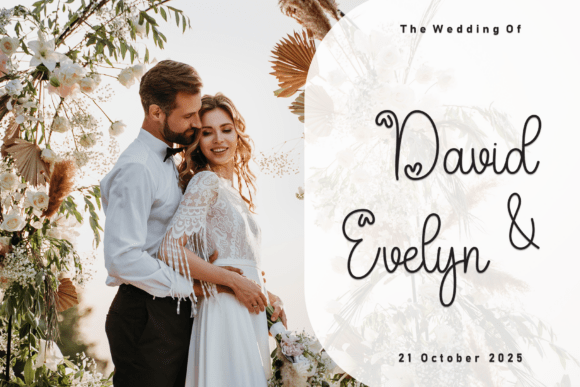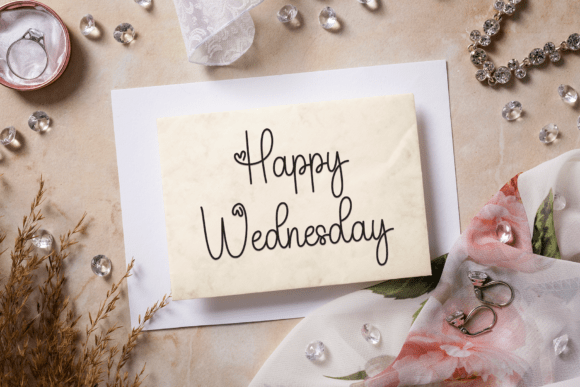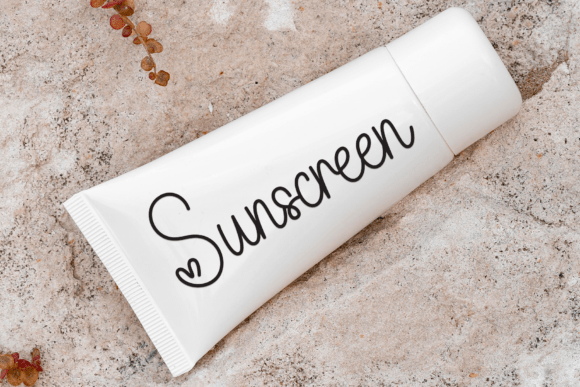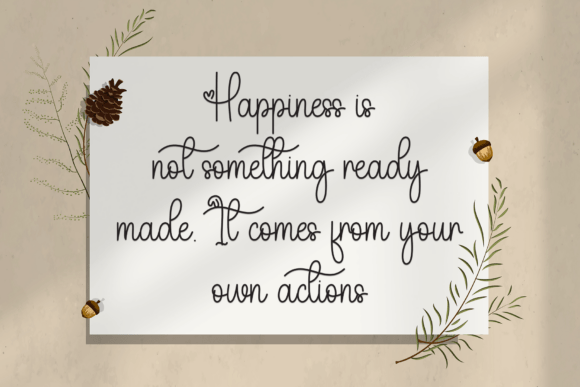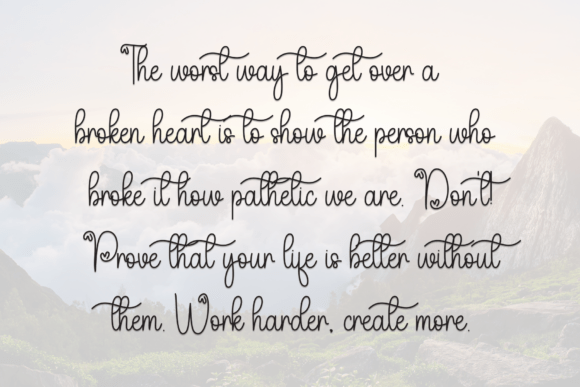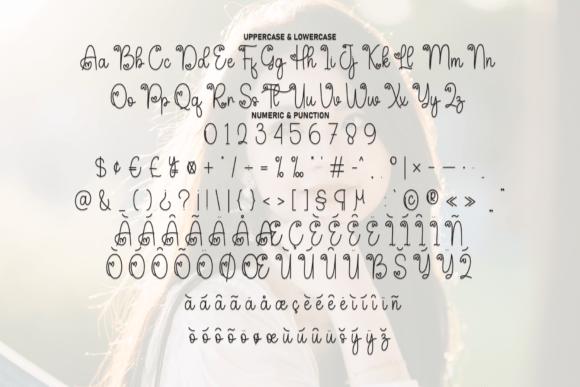
Discover Your Signature Style with Beautifulgirl Font
There’s something magical about the moment when a design idea comes together – the thrill of combining colors, textures, and typography to create a piece that truly reflects your personality. For many designers, this moment is all about finding the perfect font to set the tone and convey the message. And, that’s where the enchanting Beautifulgirl Font comes in – a delightful handwritten font that adds a touch of warmth and whimsy to any design endeavor.
Whether you’re creating wedding invitations, greeting cards, or simply want to add a personal touch to your designs, Beautifulgirl Font is the perfect companion. Its unique blend of playfulness and sophistication empowers your artistic expression to flow freely, making every design irresistibly captivating. As a designer, you’ll appreciate the versatility and charm that this font brings to your work, elevating it to a whole new level of beauty and emotion.
Beautifulgirl Font Key Features
- Font Family: Beautifulgirl
- Font Styles: Regular, Bold, Italic, Bold Italic
- Unique Characteristics: Hand-drawn design, elegant and feminine feel, suitable for headings and titles in fashion, beauty, and lifestyle projects
Designer Review: Beautifulgirl Font
First impressions count, and Beautifulgirl Font certainly delivers. Its elegant, flowing script ✨ style is perfect for adding a touch of sophistication to your designs. I love how the font’s subtle irregularities give it a handmade feel, making it perfect for creative projects or branding that requires a unique touch.
- ✨ Elegant, flowing script style perfect for creative projects or branding.
- Unique, handmade feel due to subtle irregularities.
- Wide range of weights and styles available.
- ⚠️ Limited legibility at smaller font sizes, which may make it challenging to read in certain contexts.
- ⚠️ Some characters, such as the ‘g’ and ‘q’, may be difficult to distinguish from one another.
Overall, I’m impressed with Beautifulgirl Font’s unique style and versatility. While it may have some limitations, it’s a great choice for designers looking to add a touch of elegance and sophistication to their work. Just be mindful of the font size and character spacing to ensure optimal legibility.
Tips for Getting the Most Out of Beautifulgirl Font
Use Beautifulgirl Font for creative projects that require a touch of elegance and sophistication. It pairs well with floral patterns, pastel colors, and soft lighting.
Experiment with different font sizes, colors, and styles to achieve the desired effect.
Beautifulgirl Font is ideal for:
- Fashion and beauty branding
- Floral and garden-inspired designs
Alternatives to Beautifulgirl Font for Designers
Great Vibes is a beautiful, elegant script font perfect for adding a touch of sophistication to your designs. It’s ideal for use in wedding invitations, luxury brands, and other high-end projects. When to use: Luxury brands, wedding invitations, and formal events.
Great Vibes compares to Beautifulgirl Font by offering a more refined and polished look, with a wider range of styles and weights to choose from. However, it lacks the playful, whimsical feel of Beautifulgirl Font.
Crimson Text is a serif font with a classic, timeless feel. It’s perfect for use in body text, headings, and titles. When to use: Body text, headings, and titles in publications, websites, and corporate materials.
Crimson Text compares to Beautifulgirl Font by offering a more traditional, straightforward look. While it’s not as decorative as Beautifulgirl Font, it’s a great choice for projects where a clear, readable font is needed.
Carolyna Pro is a modern, elegant script font with a feminine touch. It’s ideal for use in fashion, beauty, and lifestyle projects. When to use: Fashion, beauty, and lifestyle projects, as well as weddings and special events.